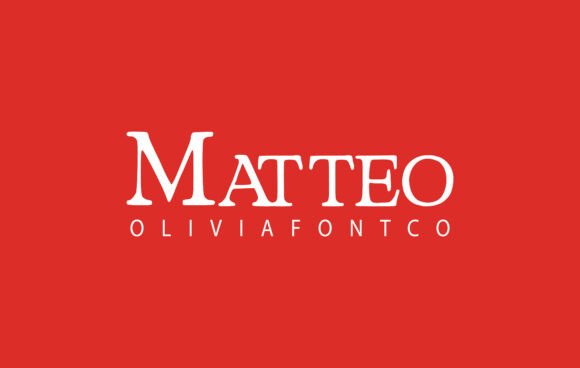
Matteo
A Serif with Soul
Matteo is a serif font that feels both classic and contemporary. Its first impression is one of refined elegance, with a subtle warmth that invites the reader to pause and engage. The letterforms are well-proportioned, with a balanced stroke contrast that gives it character without overwhelming the eye. It’s not the kind of font that shouts, but rather one that speaks softly and confidently.
Designing with Matteo
When I first tested Matteo in my design workflow, I noticed its natural fit for projects that require a touch of sophistication. Whether it’s a brand identity or a packaging design, Matteo brings a sense of maturity and visual harmony. Its serifs are not overly decorative, which makes it versatile across different applications.
For logo design, Matteo can be a strong contender if the brand leans toward traditional or premium aesthetics. It works especially well when paired with simpler sans serif fonts for contrast. In editorial design, it adds a layer of professionalism without being too rigid. I’ve used it in blog headers and social media graphics where a clean yet stylish look is needed.
Real-World Application
Matteo performs reliably in most real-life scenarios. On posters and flyers, it maintains clarity and legibility even at smaller sizes. When applied to product labels or packaging, it contributes to a polished feel that aligns with high-quality branding. I’ve also used it in web design for headers and call-to-action buttons, where its readability shines through.
One thing to note is how Matteo handles uppercase and lowercase letters. The lowercase forms are slightly more stylized, which can add visual interest but may require careful use in supporting text. Testing it in black and white is always a good idea, as some details might not translate well in monochrome environments.
Where to Use Matteo Carefully
While Matteo is a solid choice for many applications, there are situations where it should be used with caution. Large headlines and short phrases benefit from its bold presence, but overuse can lead to a lack of visual hierarchy. Brand marks and quotes are best suited for this font, as they often need a distinct and memorable appearance.
For decorative accents or premium packaging, Matteo can elevate the design significantly. However, it’s important to ensure that it doesn’t overshadow the main content. Social posts and supporting text should be handled with care, as the font’s style can sometimes make small text harder to read.
Readability and Professionalism
Readability is key in any design, and Matteo excels in this area. Its clear spacing and consistent weight make it suitable for both print and digital formats. When used alongside a sans serif font, the contrast helps guide the reader’s eye through the content effectively.
Matteo contributes to brand consistency by offering a reliable and recognizable typeface. It fosters audience trust and recognition, especially in industries like publishing, fashion, and luxury goods. Its professional yet approachable nature makes it a great fit for a wide range of clients.
Designer Notes
As a designer, I recommend testing Matteo on real mockups before finalizing a project. Check how it looks in different contexts—whether it’s on a website header, a flyer, or a Canva template. Compare it with other typefaces like a modern sans serif or a script font to see how it interacts with your design palette.
Conclusion
Matteo is a versatile serif font that brings a unique blend of elegance and functionality. It’s a great choice for designers looking to create a sophisticated yet accessible visual identity. Whether it’s for brand identity, editorial design, or digital products, Matteo has the potential to enhance your work with its thoughtful typography and strong personality.